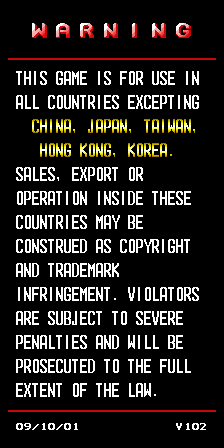
Recrations of DoDonPachi II Bee Storm (2001) © by IGS (International Games System), ©Licensed by Cave 1999-2004. Includes font presented from in-game tileset and additional characters not existed in original tileset.
Original font (see bottommost text in regional warning screen)